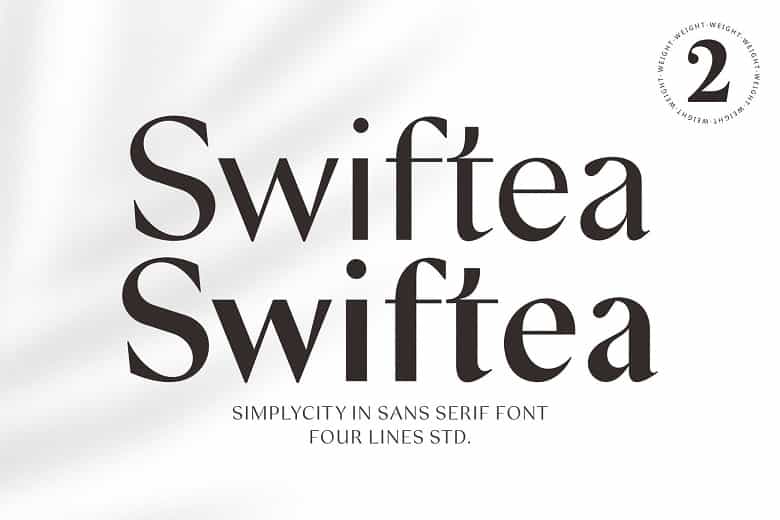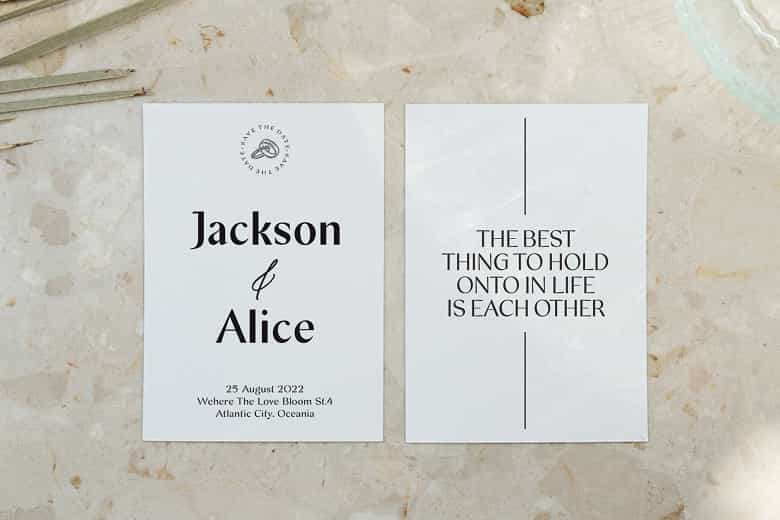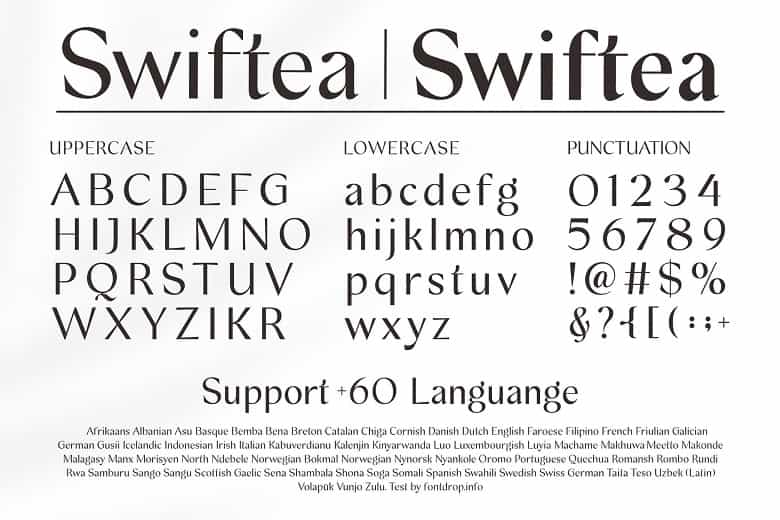
Swiftea is a sans-serif typeface that is designed in a way that is clean and minimalistic with an aim of being used for different projects. This font is simple, elegant and easy to read that makes it suitable for use in various designs.